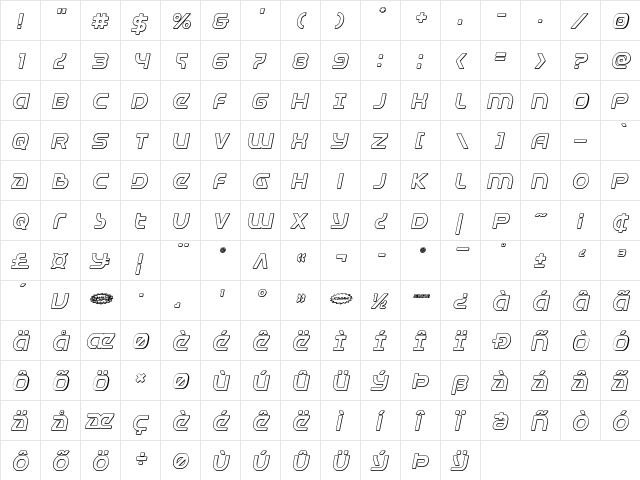
Universal Jack 3D Italic Italic
Design Context for Universal Jack 3D Italic Typeface
Universal Jack 3D Italic is a composed and adaptable typeface that performs quietly and consistently across a wide range of design contexts. The dynamic lean of this cut emphasises speed and emphasis in any layout.
Pro Tip: Use Universal Jack 3D Italic for emphasis, pull quotes, and subheadings where its slanted energy can add rhythm to the layout.